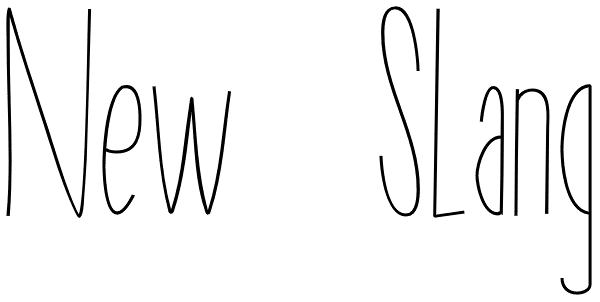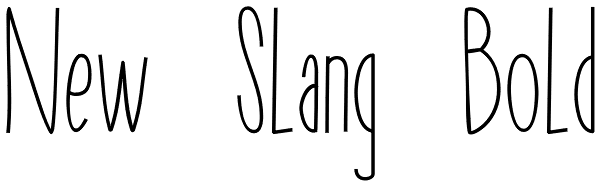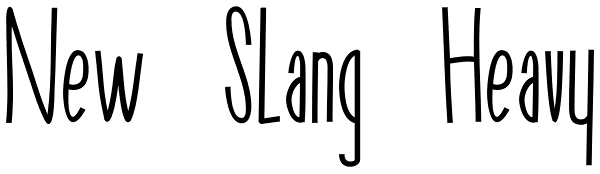
New Slang
New Slang is thin and spidery, a lightweight font that has more in common with a scrawl or etched graffiti, perfect for a nicely weighted ransom note or cry for help. Upper case, lower cases and various other glyphs (euro), I hope you like it.